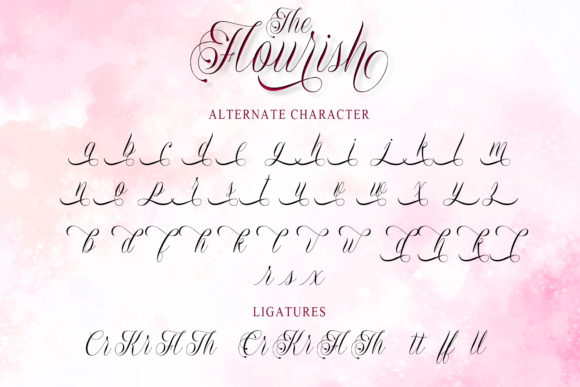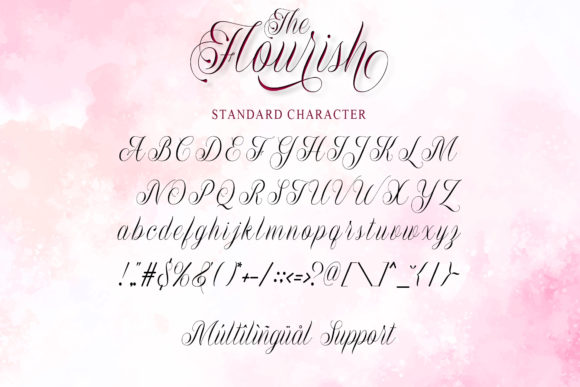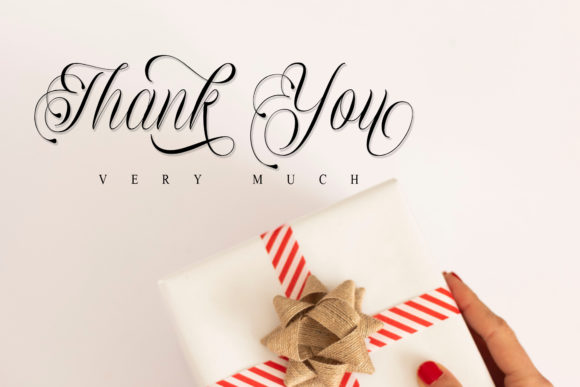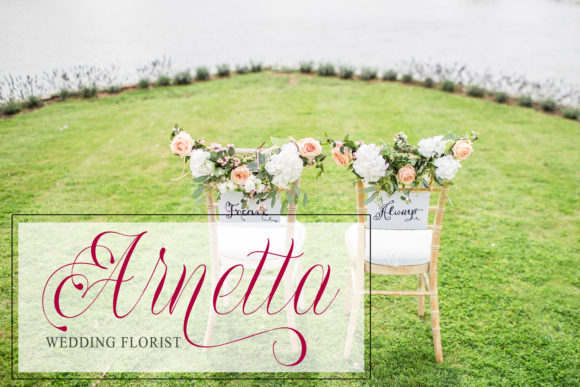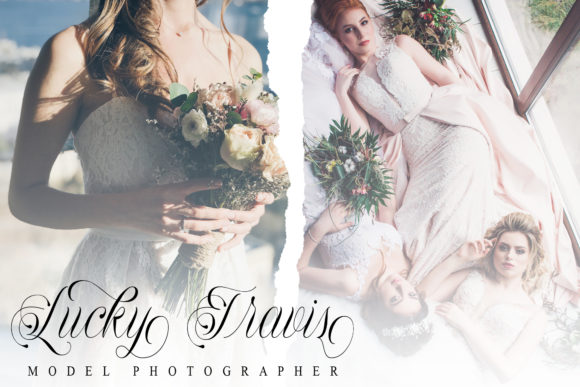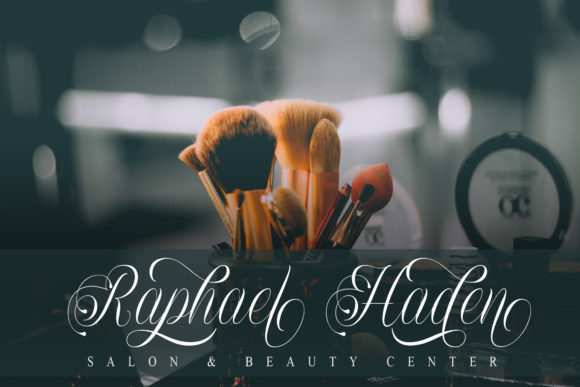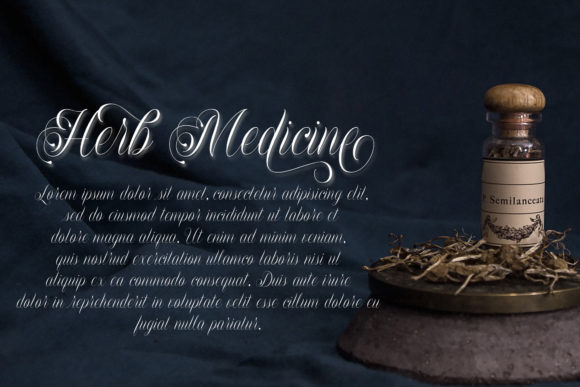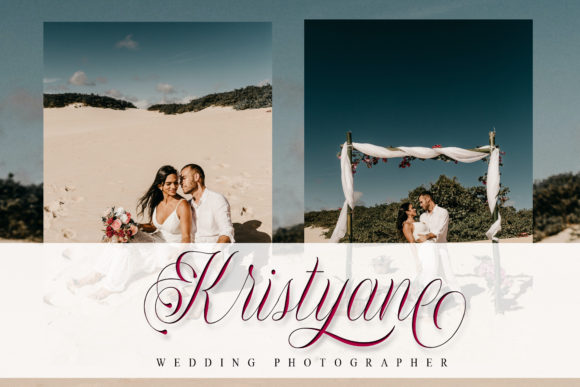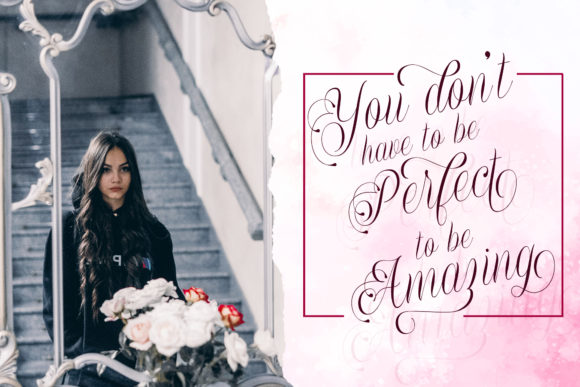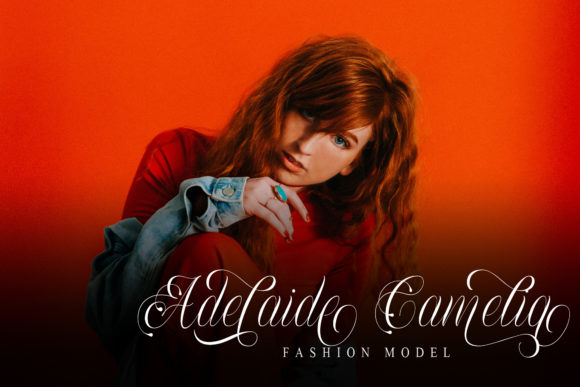
The Flourish Font
About The Flourish Font
The Flourish, is a timeless and elegant handwritten font. It looks stunning on wedding invitations, thank you cards, quotes, greeting cards, logos, business cards and every other design which needs a handwritten touch.